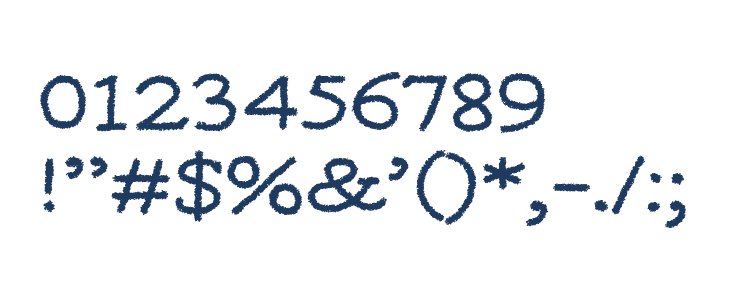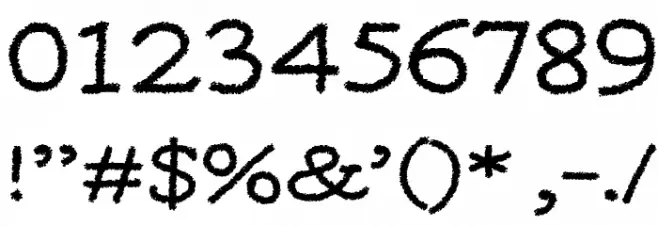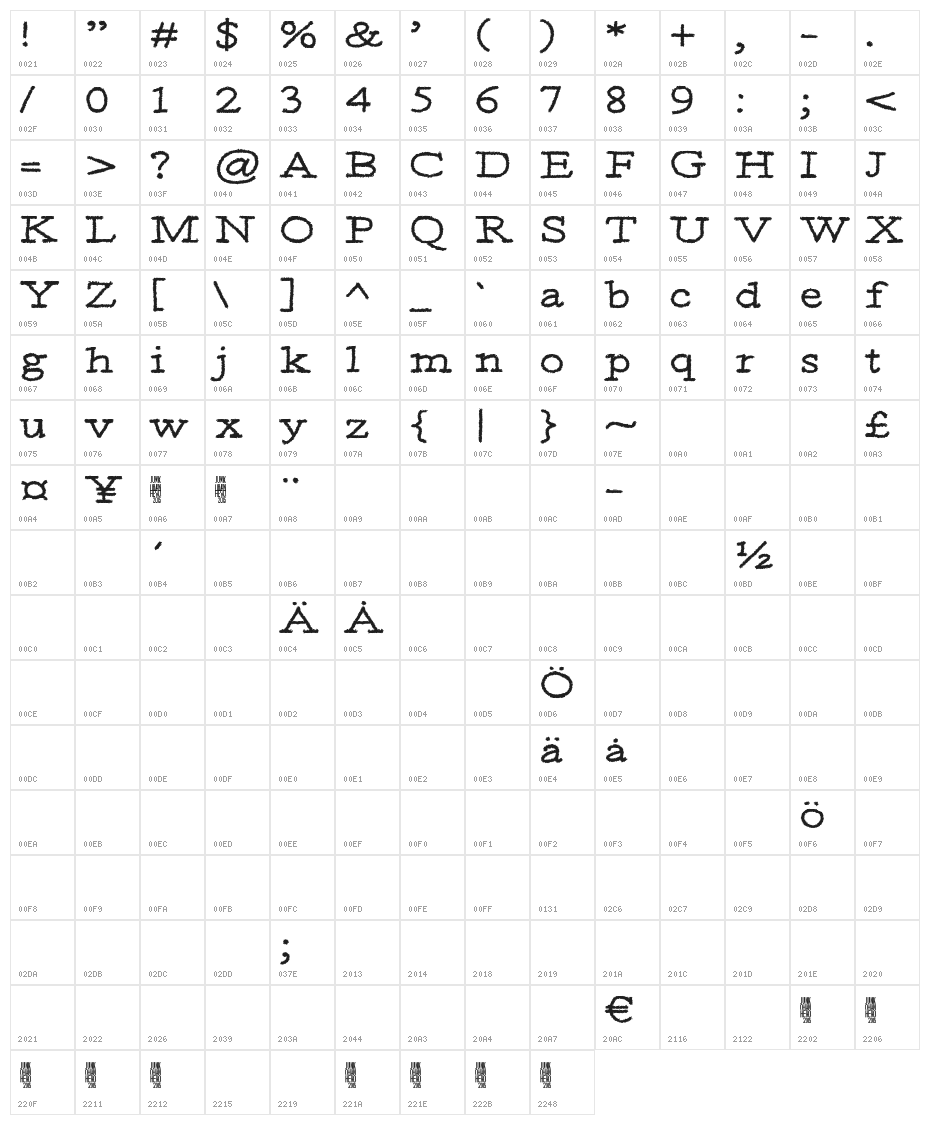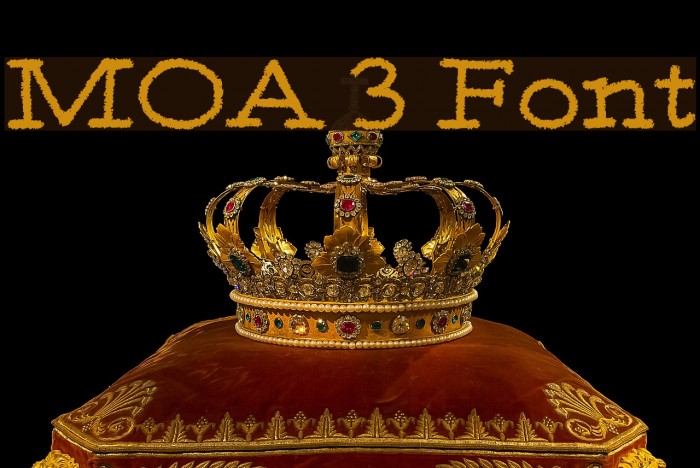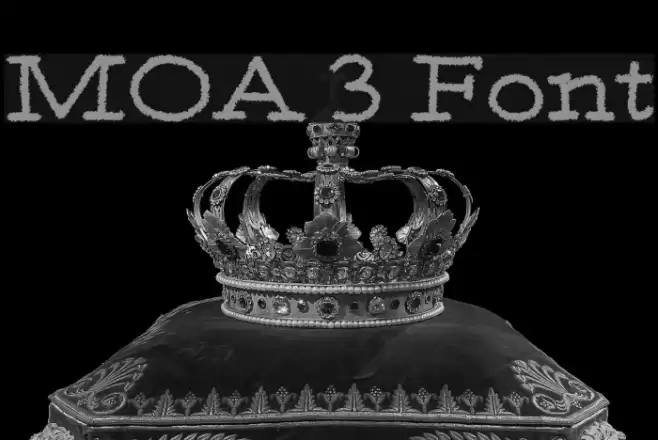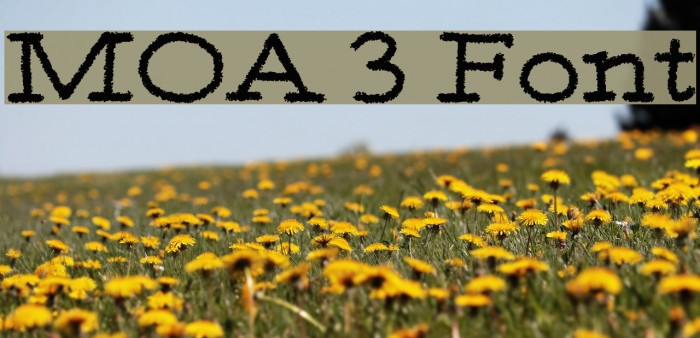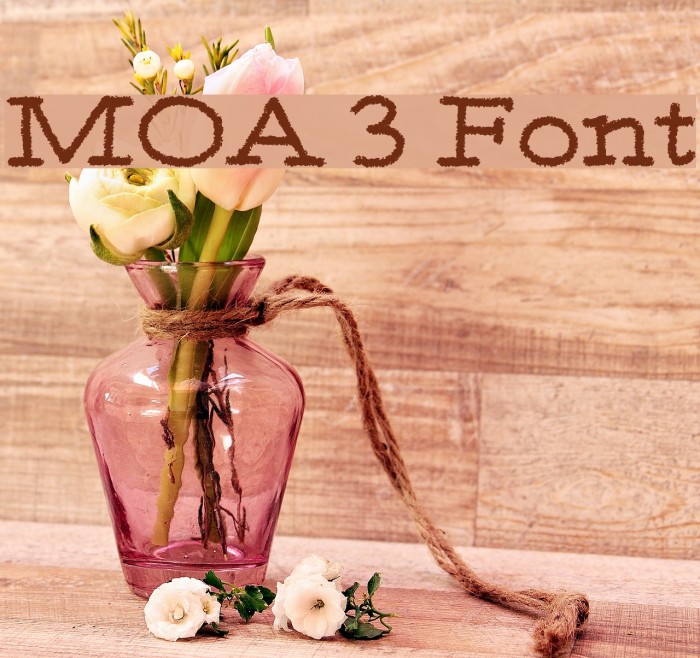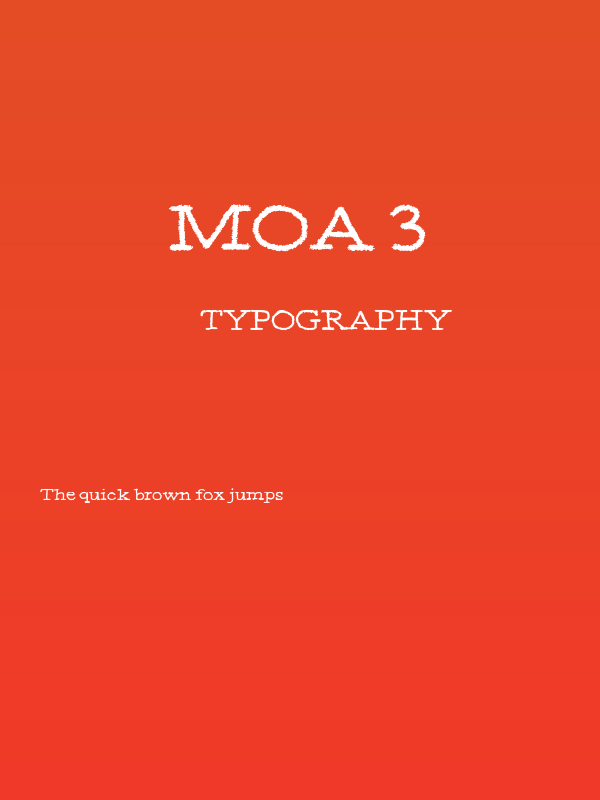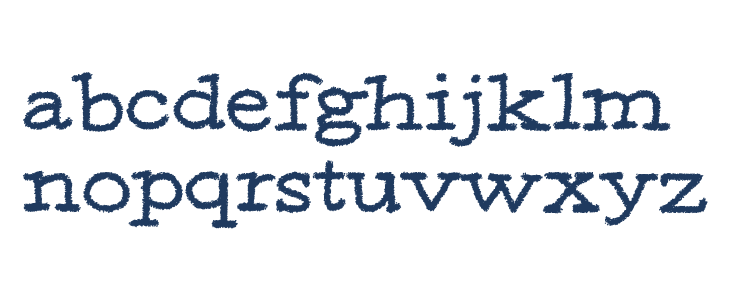
MOA 3 Font
MOA 3 Description
This font features a classic serif style with a textured, slightly distressed appearance, giving it a vintage and handcrafted feel. The serifs are pronounced, adding a touch of elegance and tradition. The uppercase letters are bold and commanding, while the lowercase letters maintain a consistent flow with rounded edges. Numbers are clear and legible, matching the overall aesthetic. Special characters are well-integrated, maintaining the font's cohesive look. The texture adds depth, making it suitable for projects that require a rustic or artisanal touch.
| Proposed Projects | Ideal for branding, packaging, invitations, and editorial design where a vintage or handcrafted look is desired. |